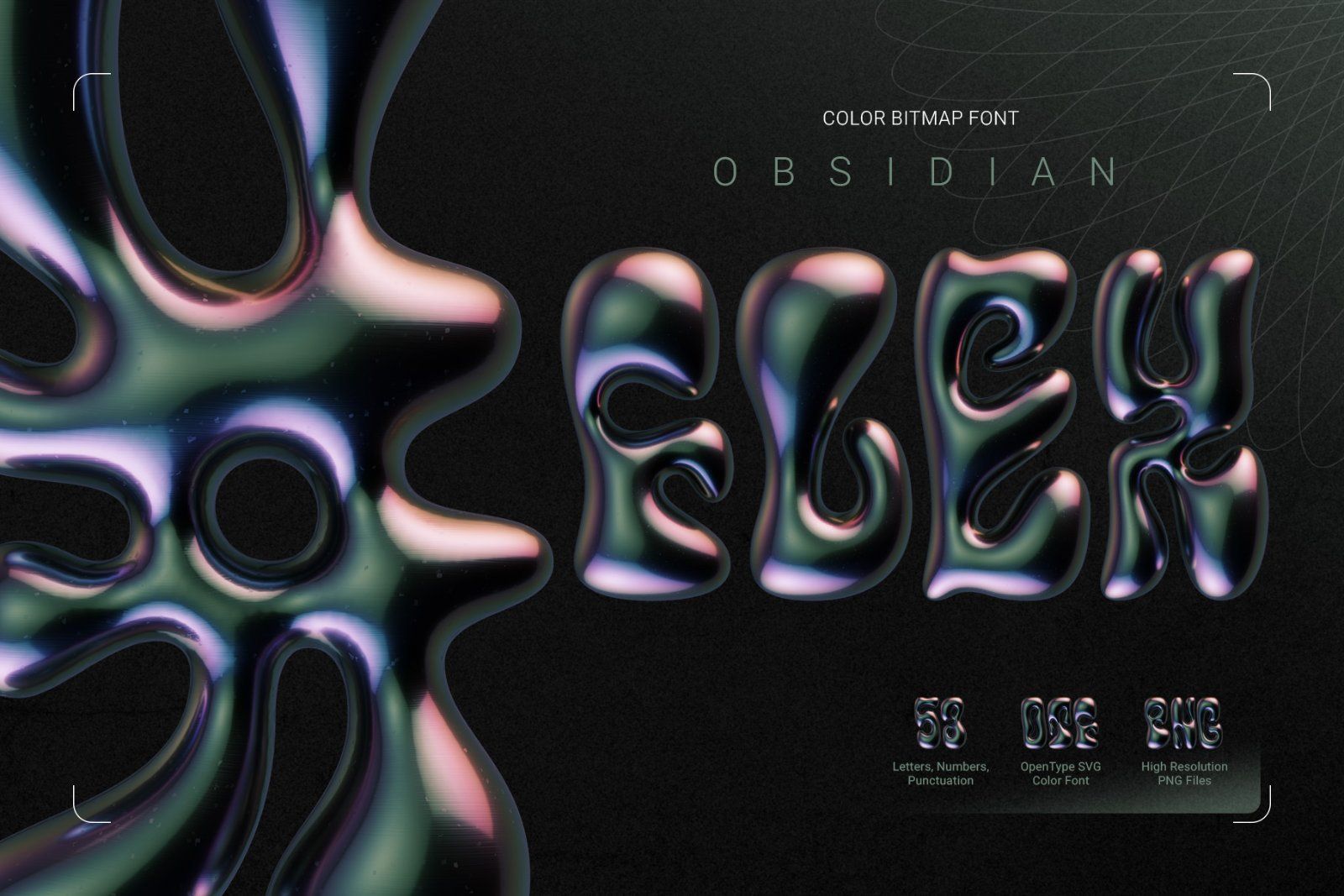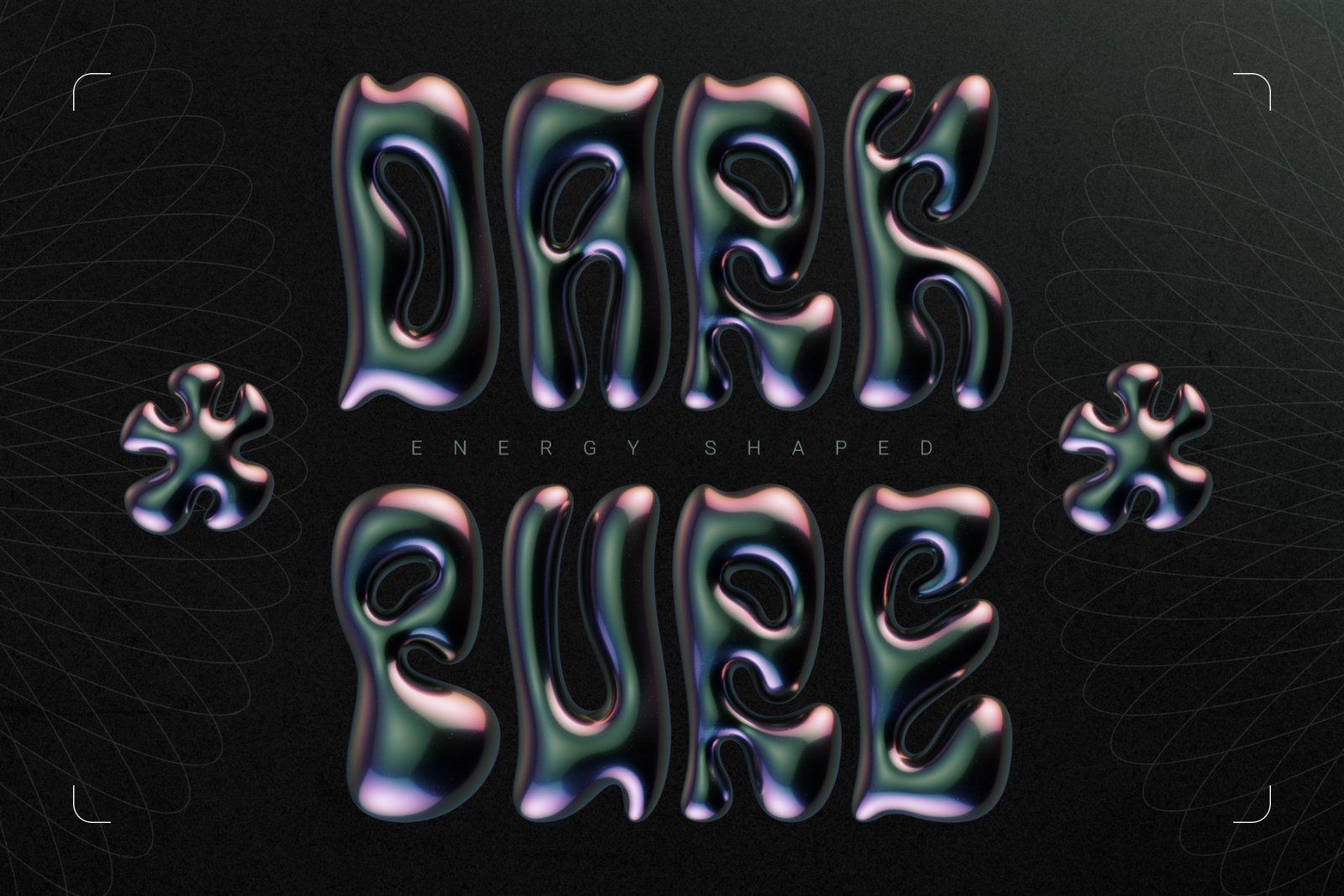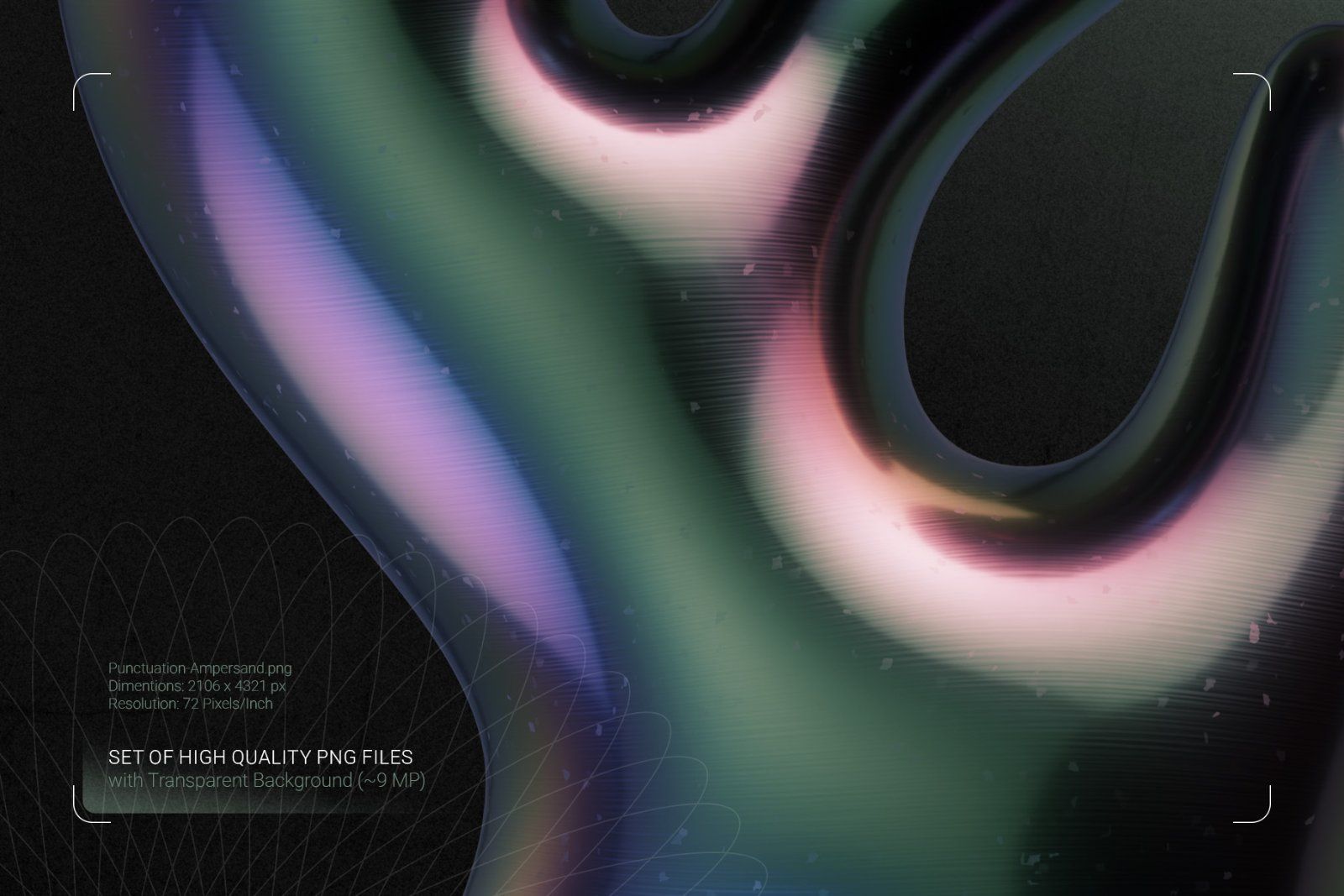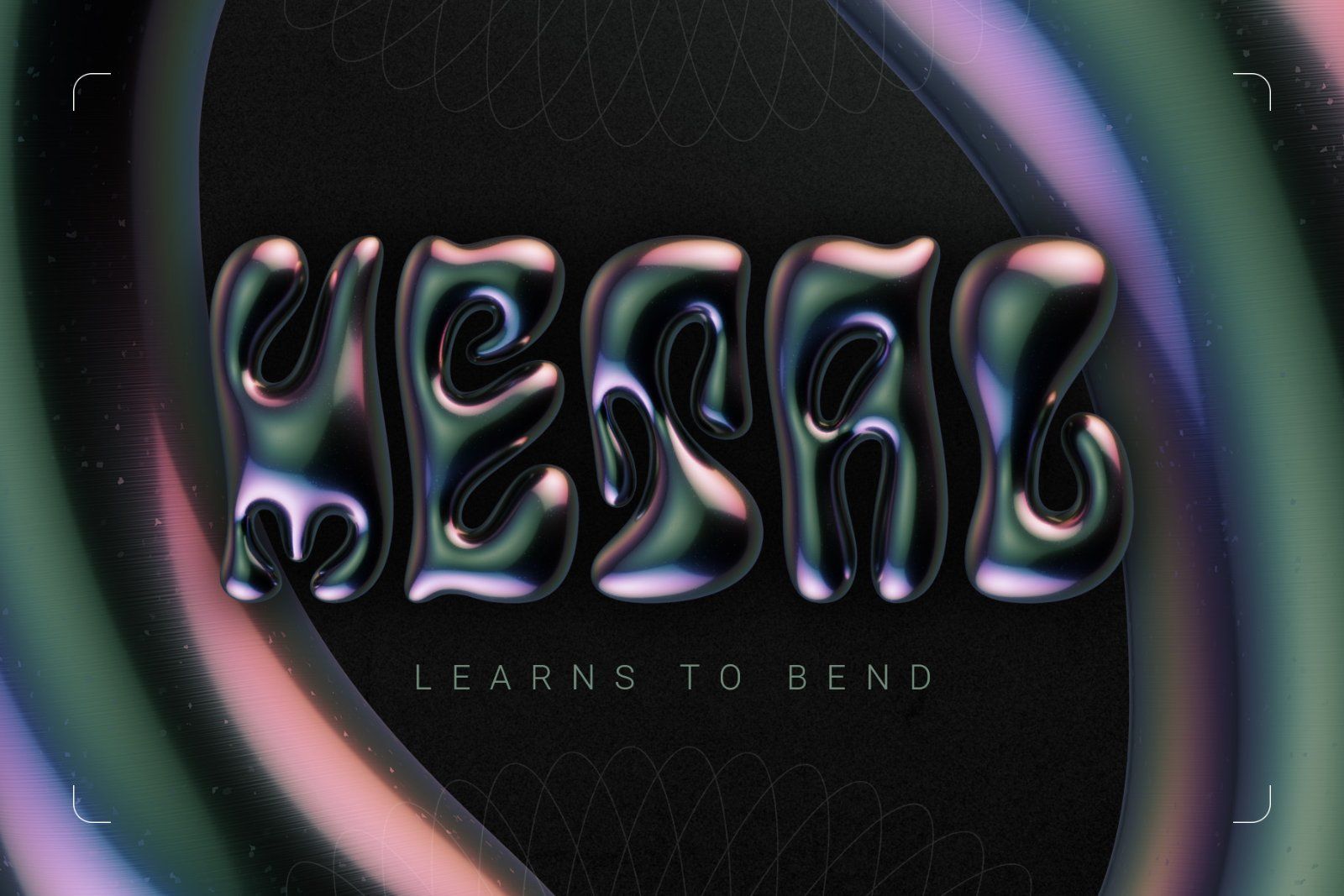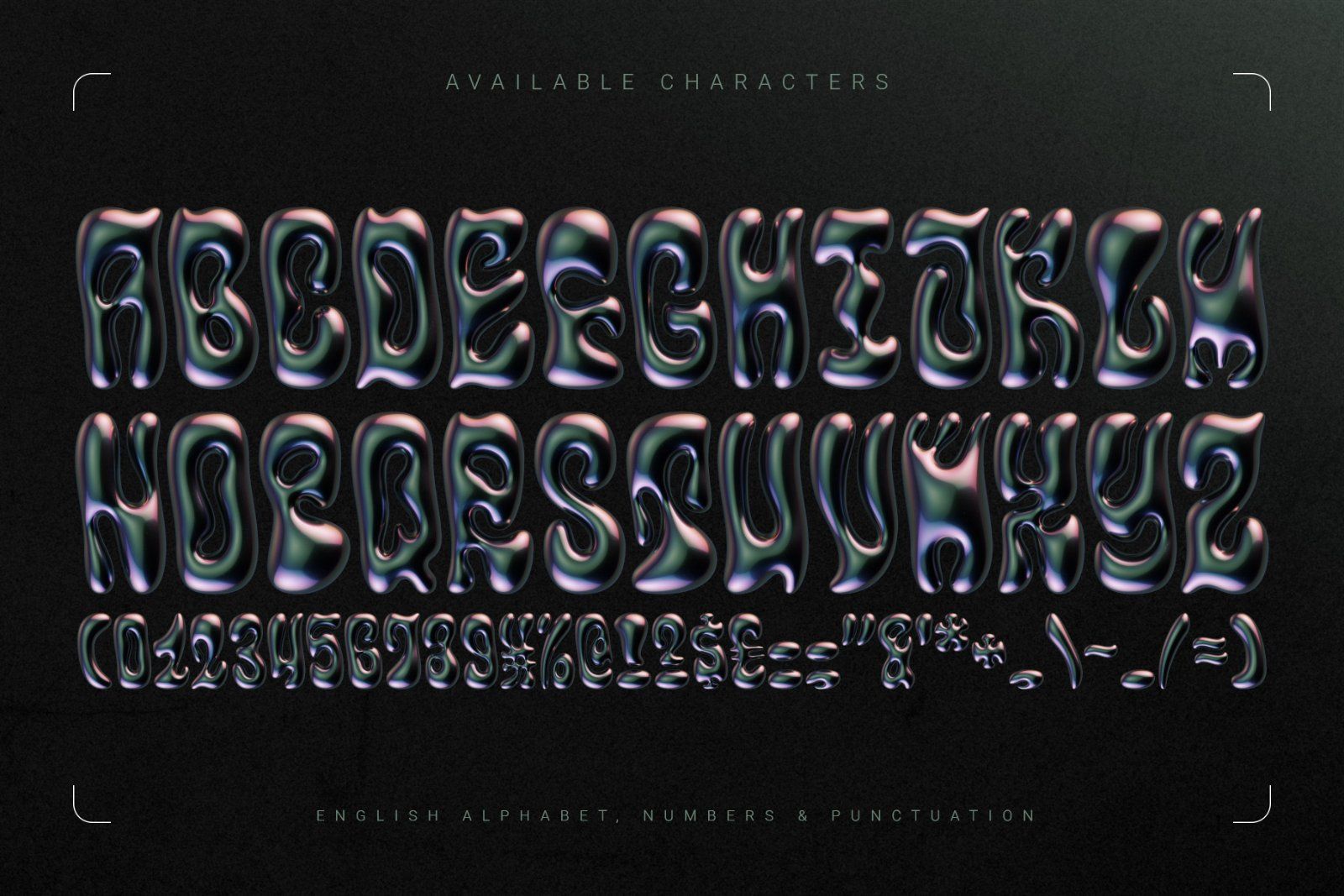
Obsidian Flex is a smooth 3D bitmap font with a glossy, reflective surface and a dark yet colorful mood. It features a vintage, groovy foundation with a nicely inflated shape.
Consider that the font supports only the English language and basic punctuation. Be sure to review the included screenshot for a complete list of available characters.